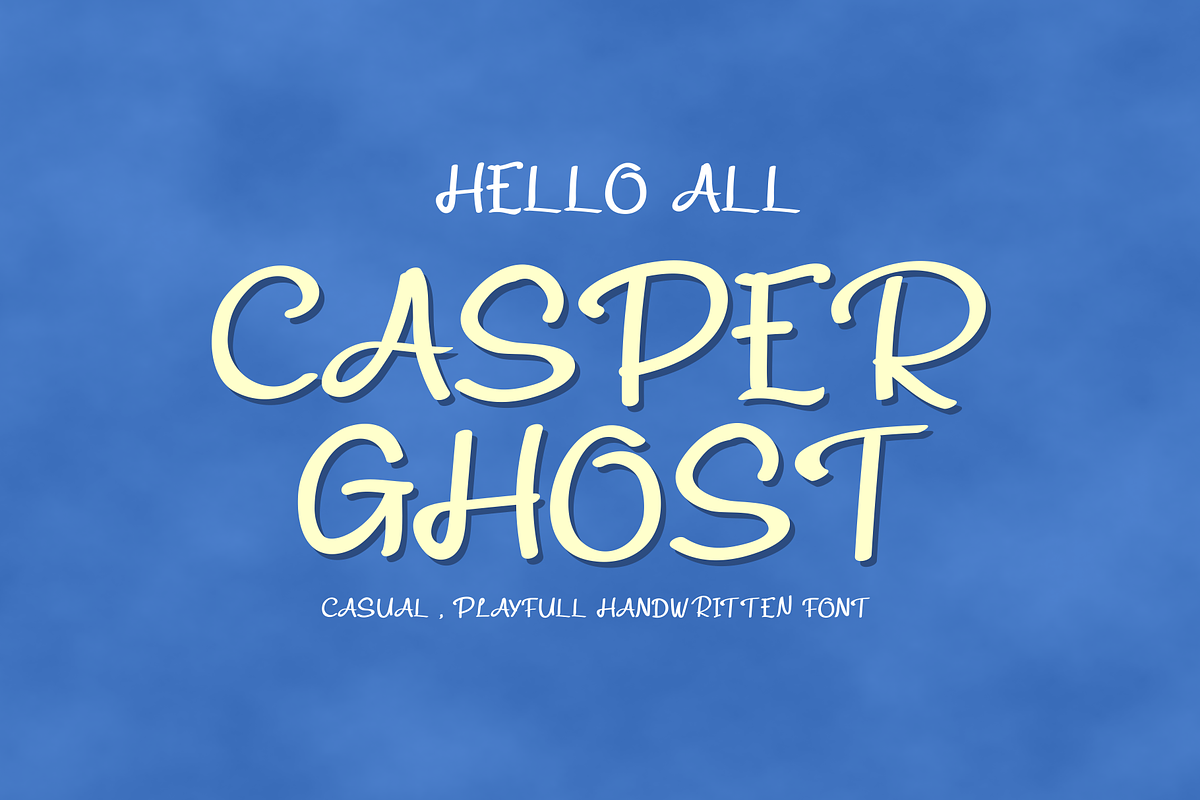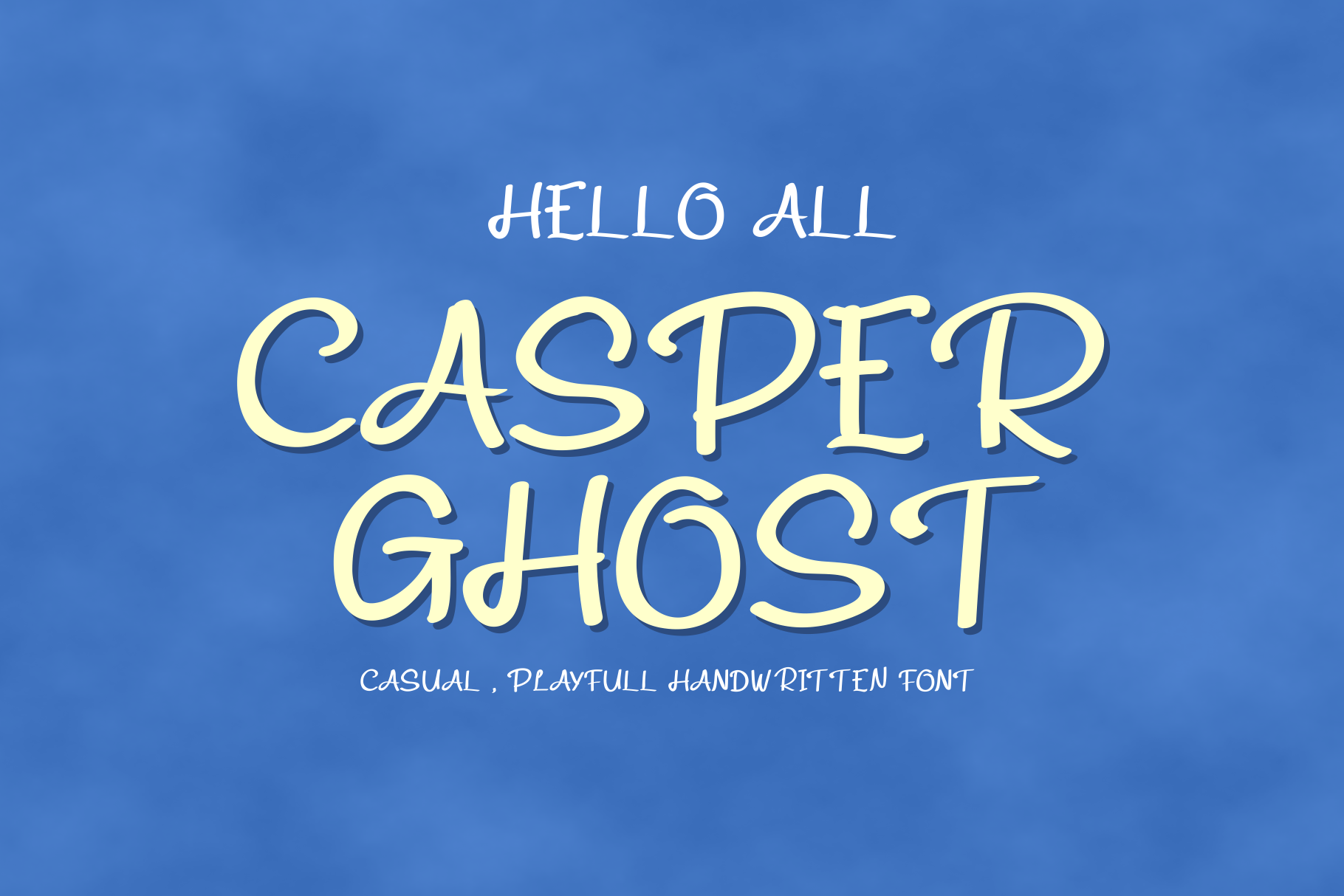
CASPER GHOST HANDWRITTEN FONT
CASPER GHOST FONT is inspired by calligraphy brushes that are digitally etched but still maintain traditional values, with direct hand strokes, casual style writing, simple, playful impression, and very well used for your design needs that use casual style, logo type, your SME brand , and all the necessities related to the casper ghost font style.